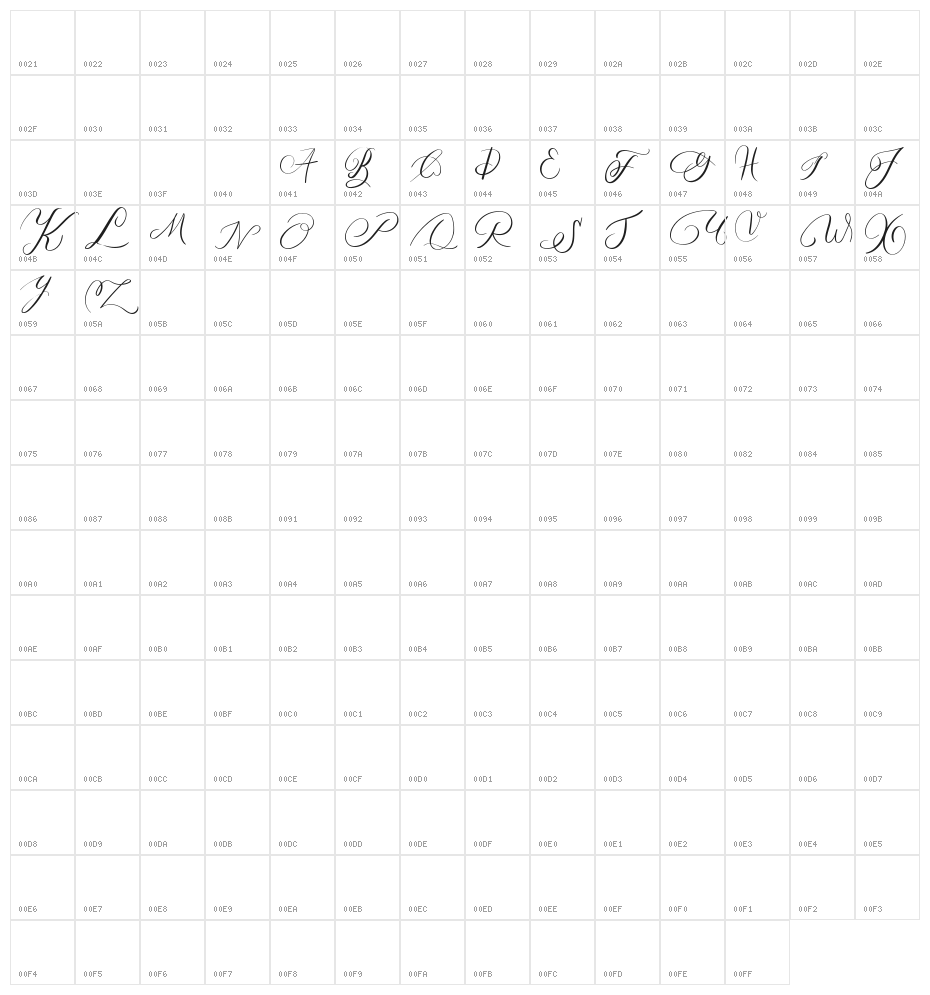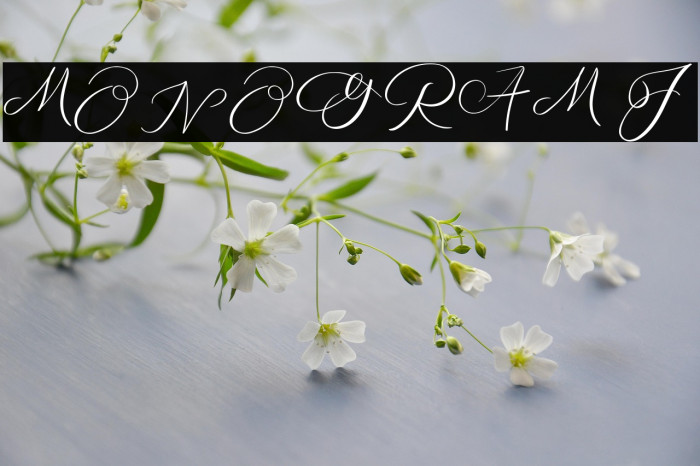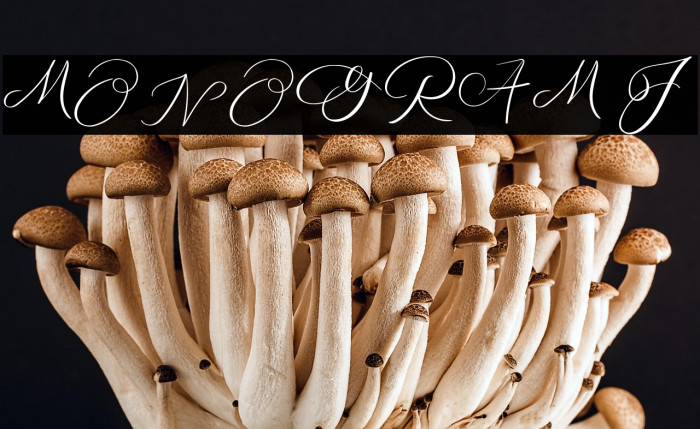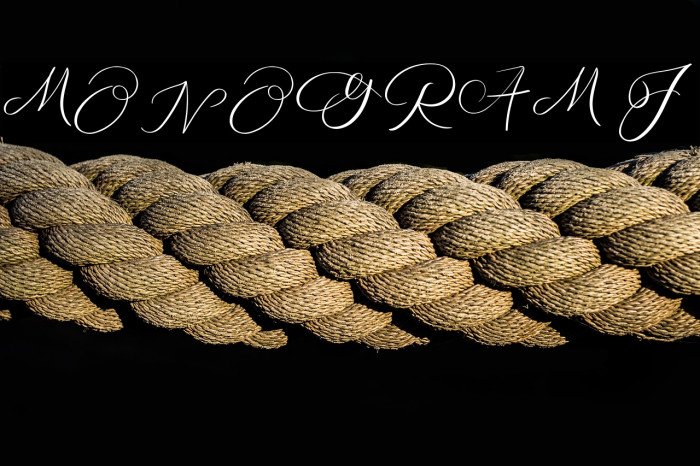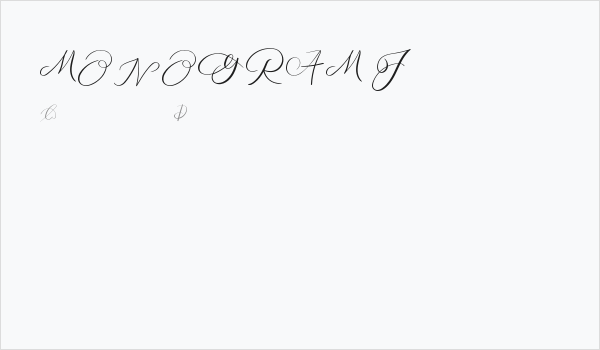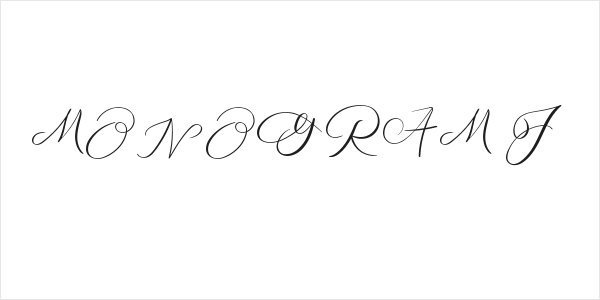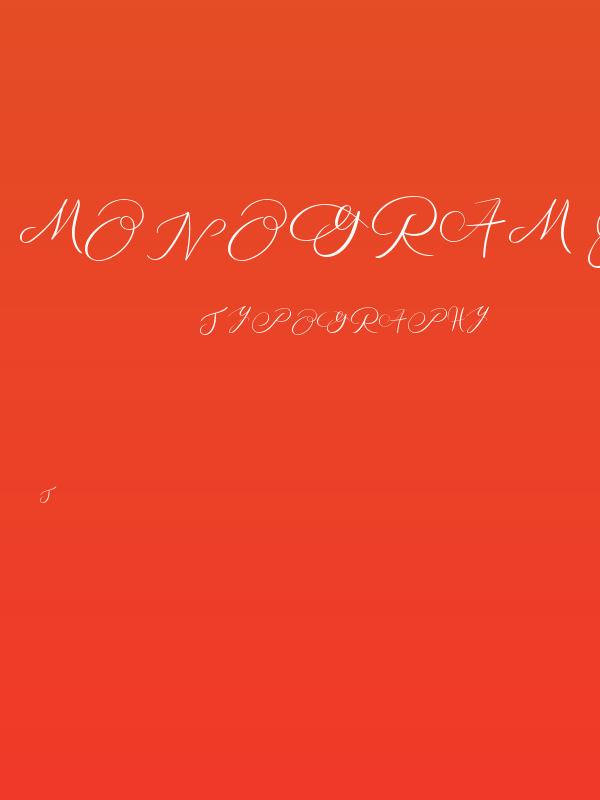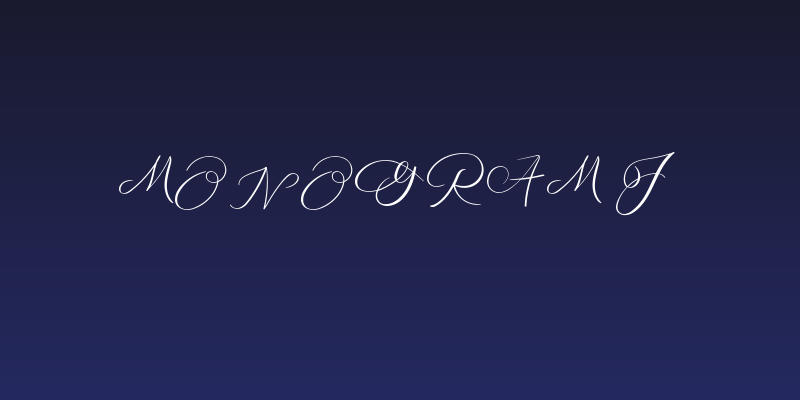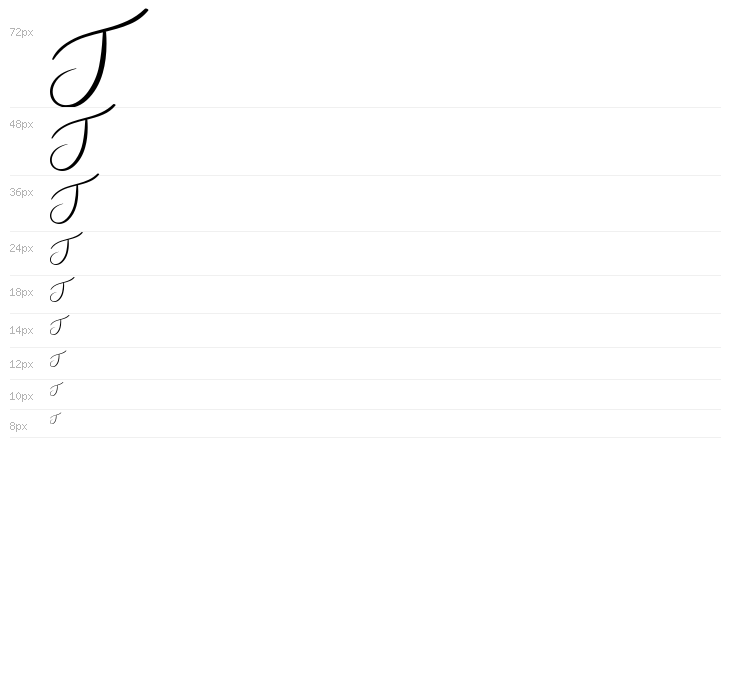
MONOGRAM J Font
MONOGRAM J Description
This elegant script font features intricate, flowing lines that create a sense of sophistication and grace. Each letter is adorned with delicate flourishes, giving it a decorative and ornate appearance. The strokes are smooth and fluid, with varying thickness that adds a dynamic quality to the text. This font is perfect for creating a luxurious and refined aesthetic, making it ideal for formal invitations, branding, and high-end product packaging. Its artistic style captures attention and adds a touch of elegance to any design project.
| Use Case | Logos, Invitations, Branding |
| Proposed Projects | Ideal for wedding invitations, luxury branding, high-end product packaging, and elegant stationery. |